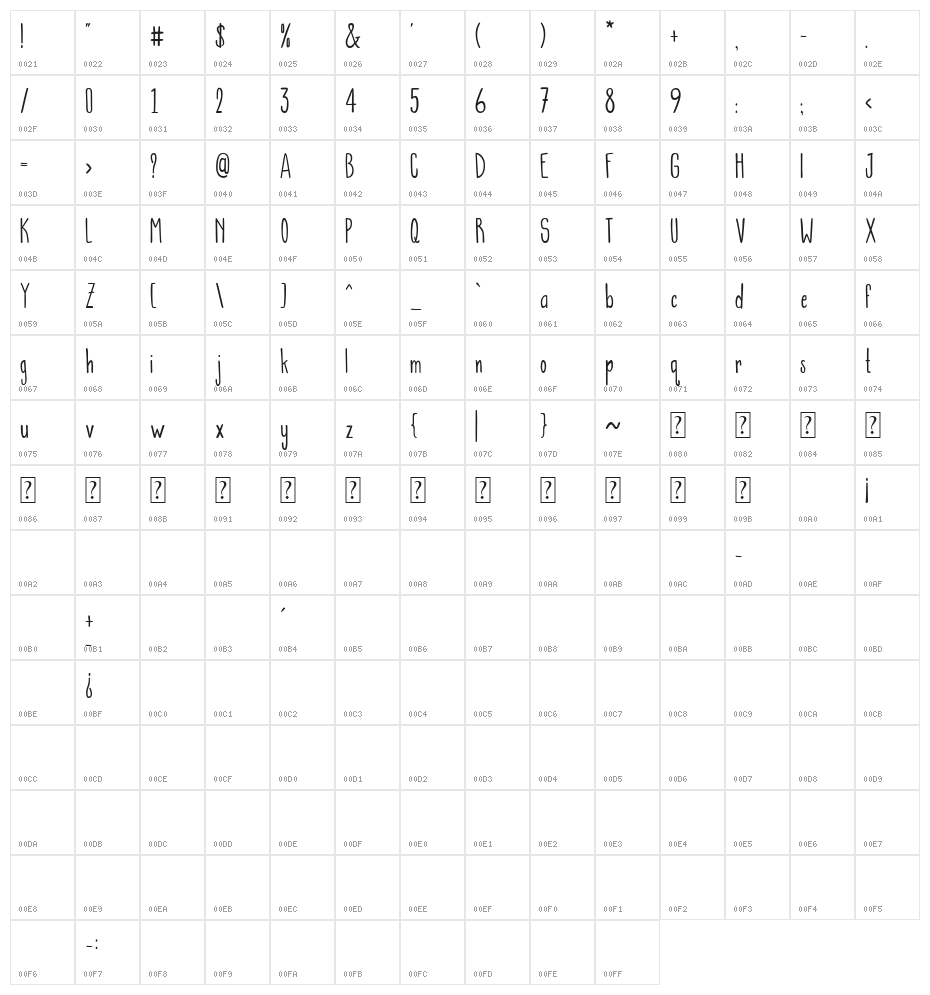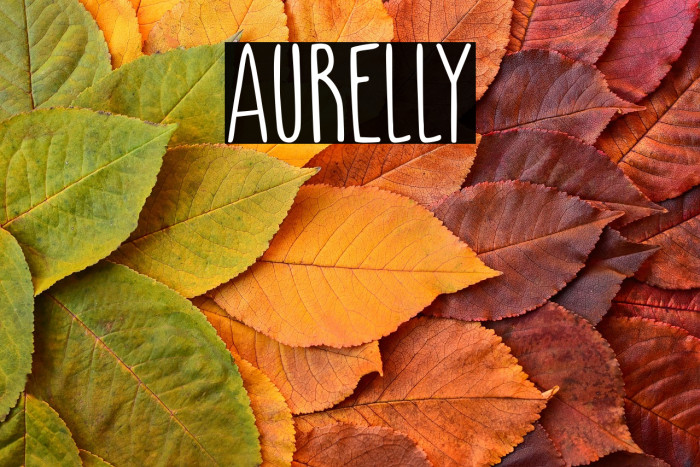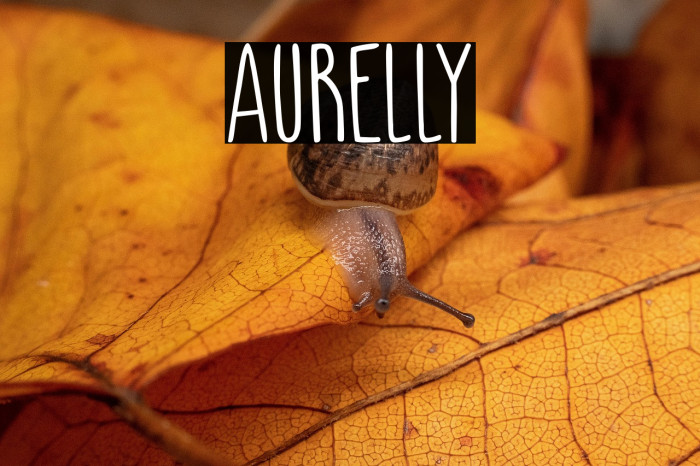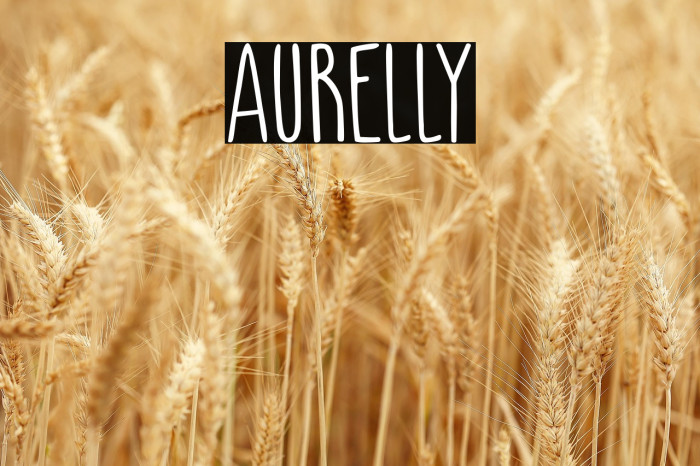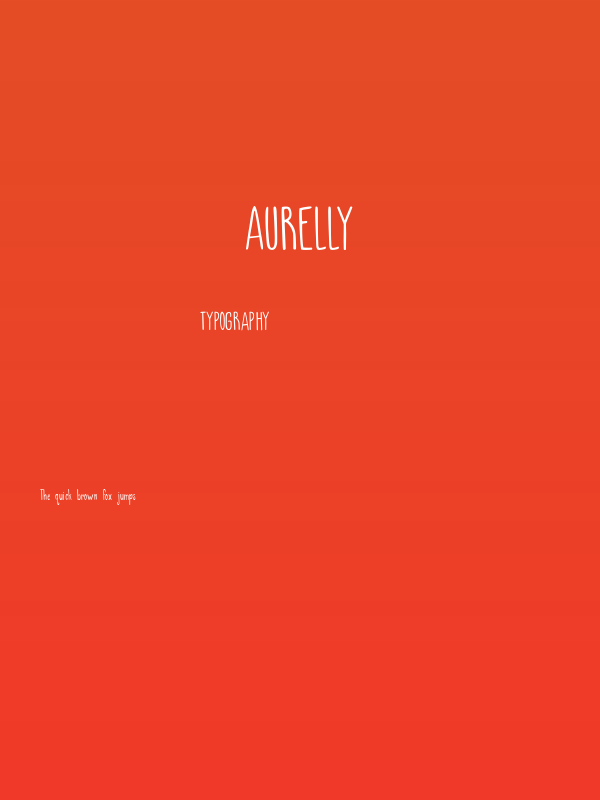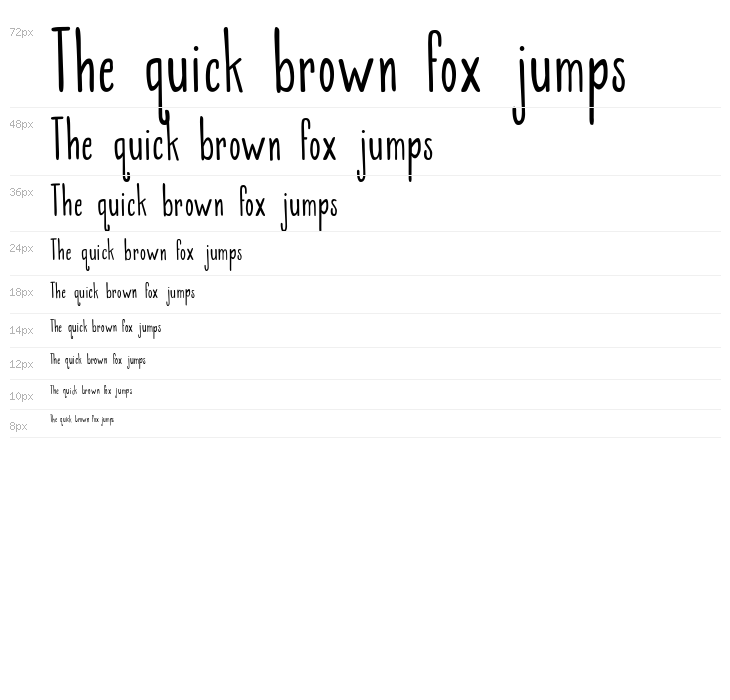
AURELLY Font
AURELLY Description
This font features a playful and casual handwritten style, characterized by its tall, narrow letters with a slight slant. The strokes are consistent in thickness, giving it a uniform appearance. The uppercase letters are slightly taller than the lowercase, maintaining a cohesive look. The numbers are clear and legible, matching the overall style of the alphabet. Special characters are included, adding versatility to the font. Its informal and friendly appearance makes it suitable for a variety of creative projects.
| Use Case | Headlines, Logos, Social Media Graphics |
| Proposed Projects | Ideal for greeting cards, children's books, casual branding, and social media graphics. |